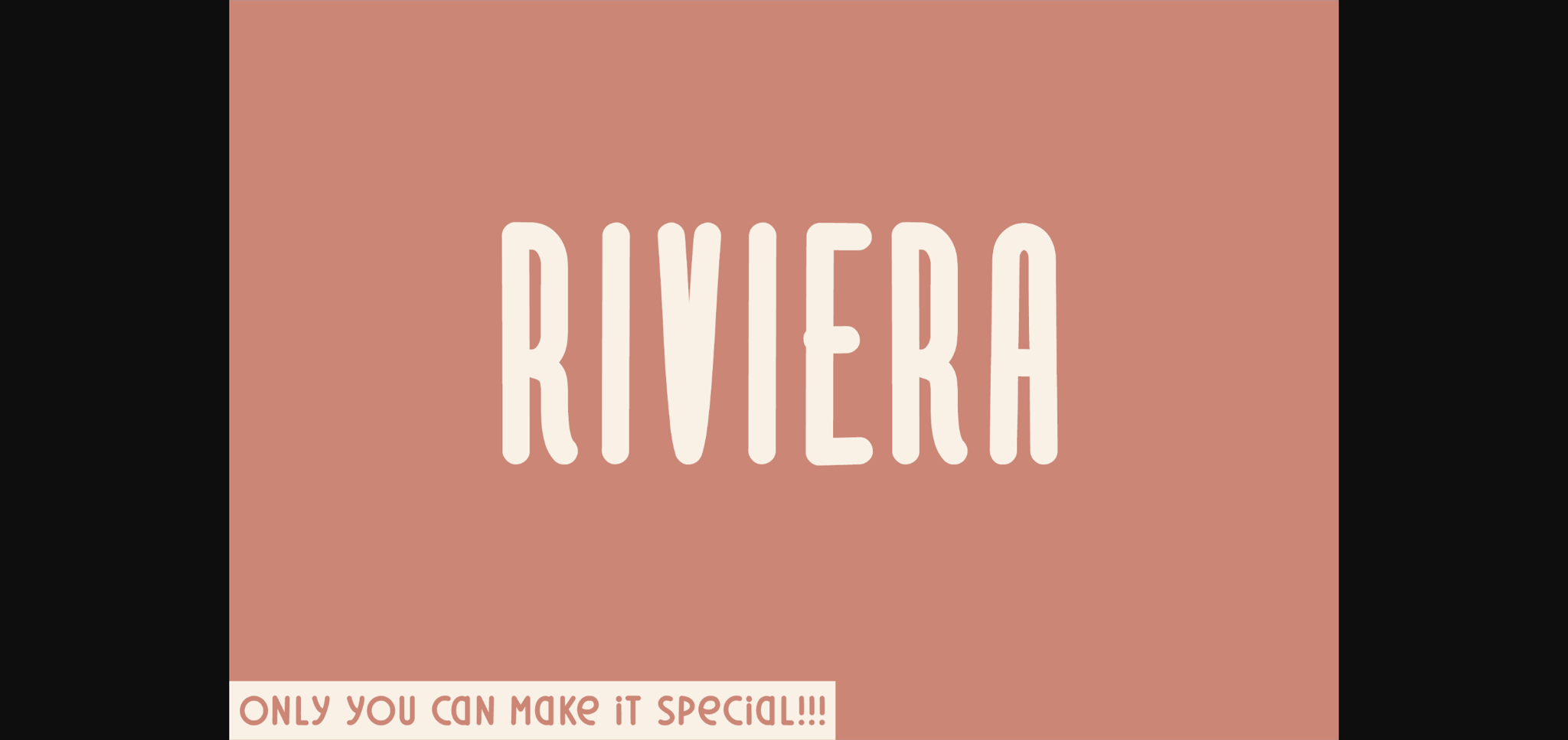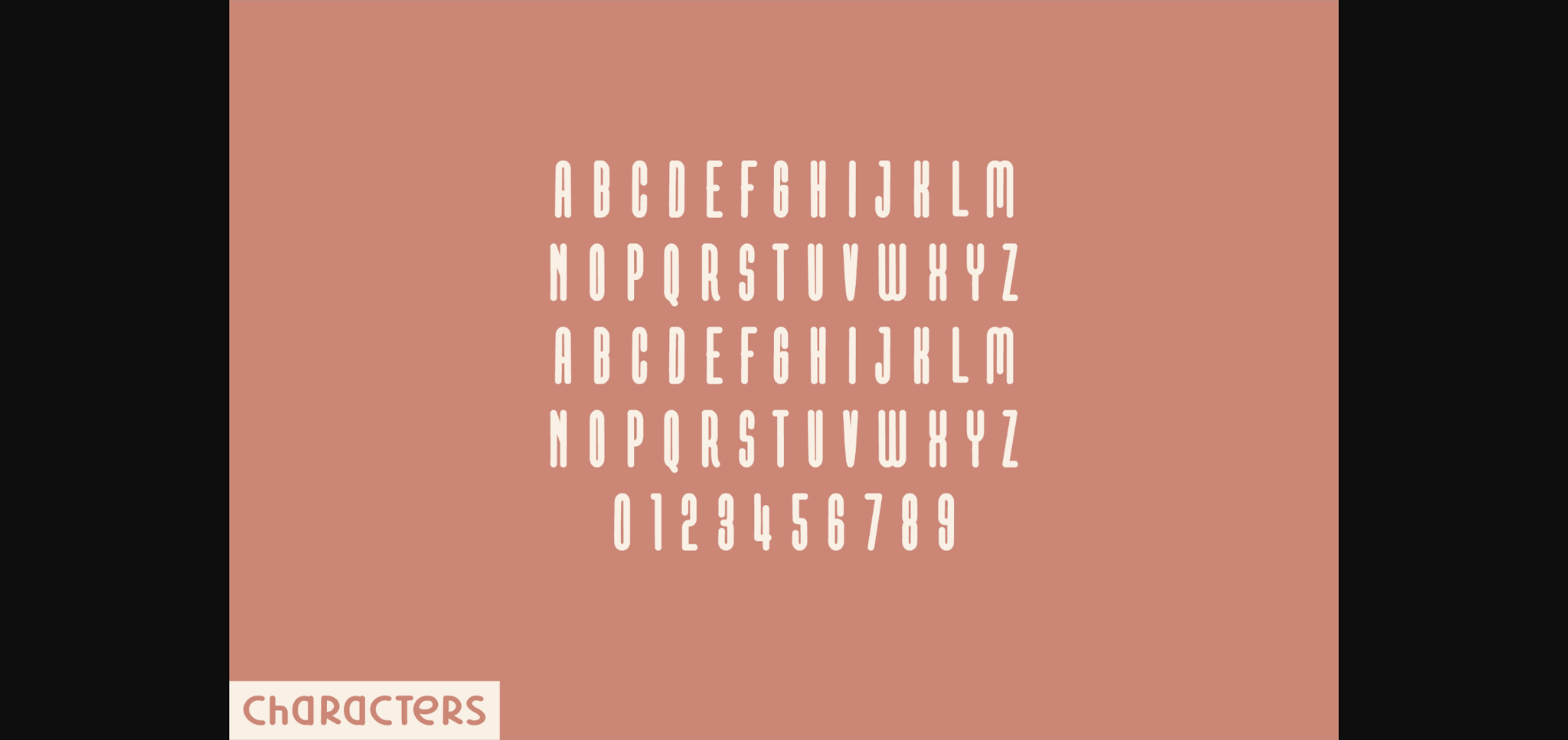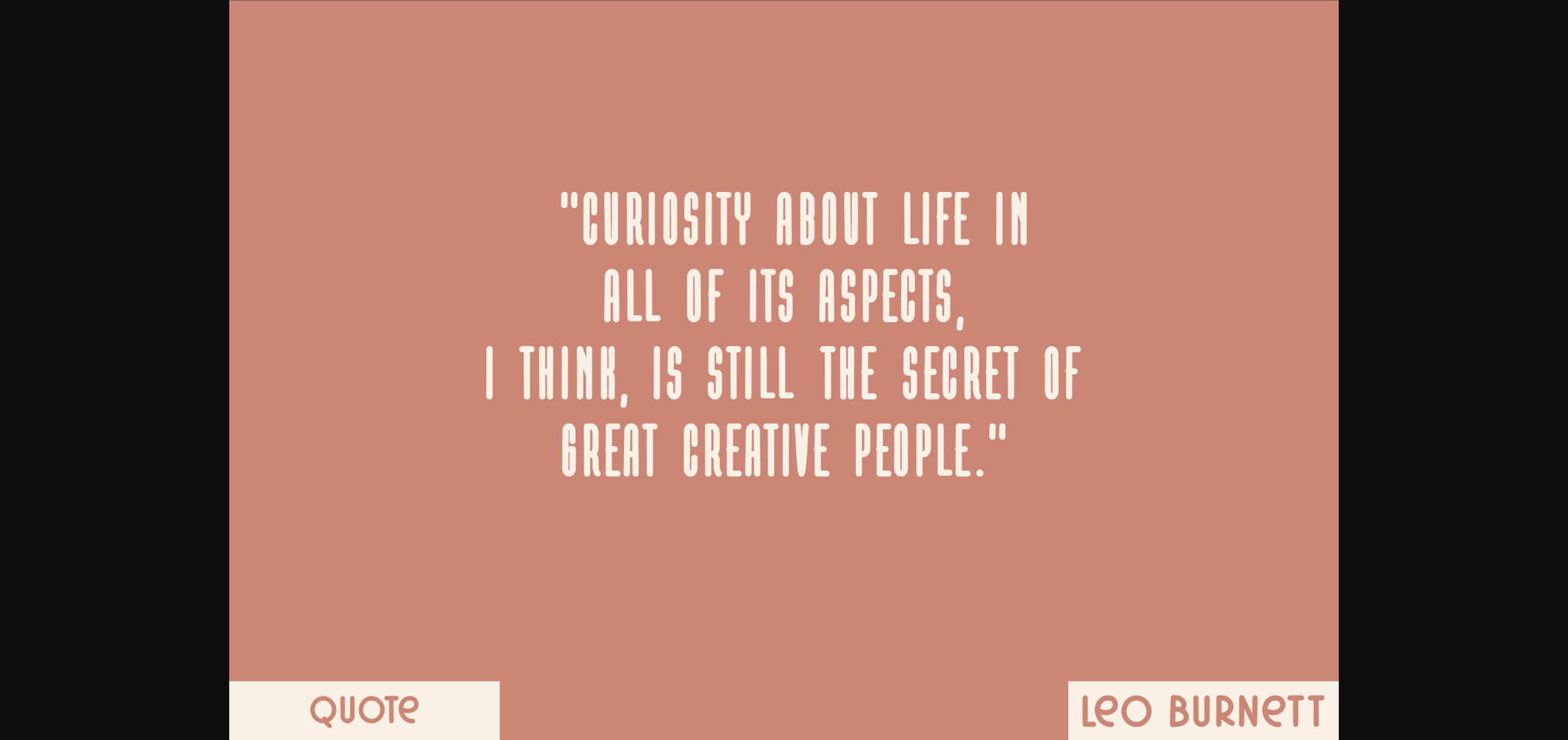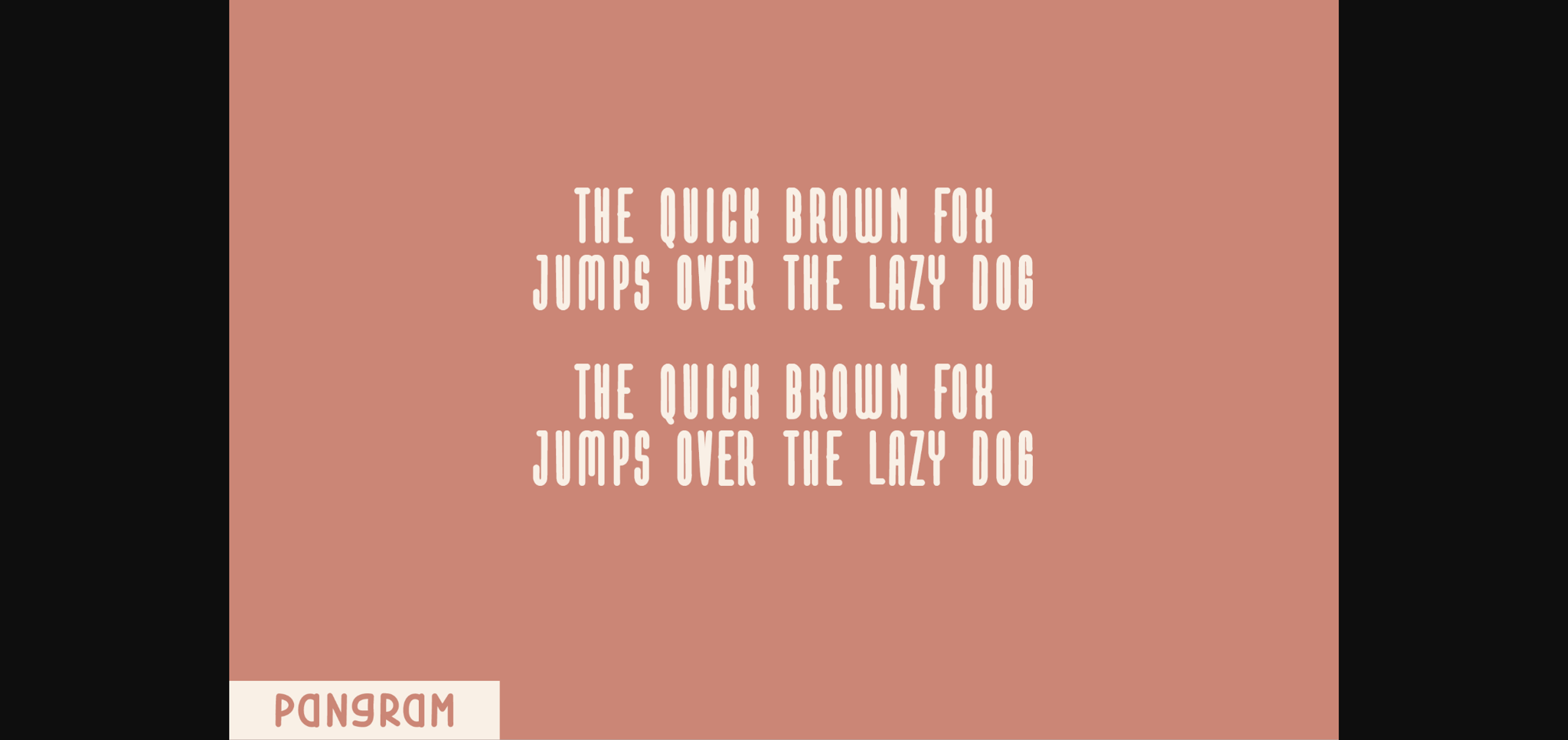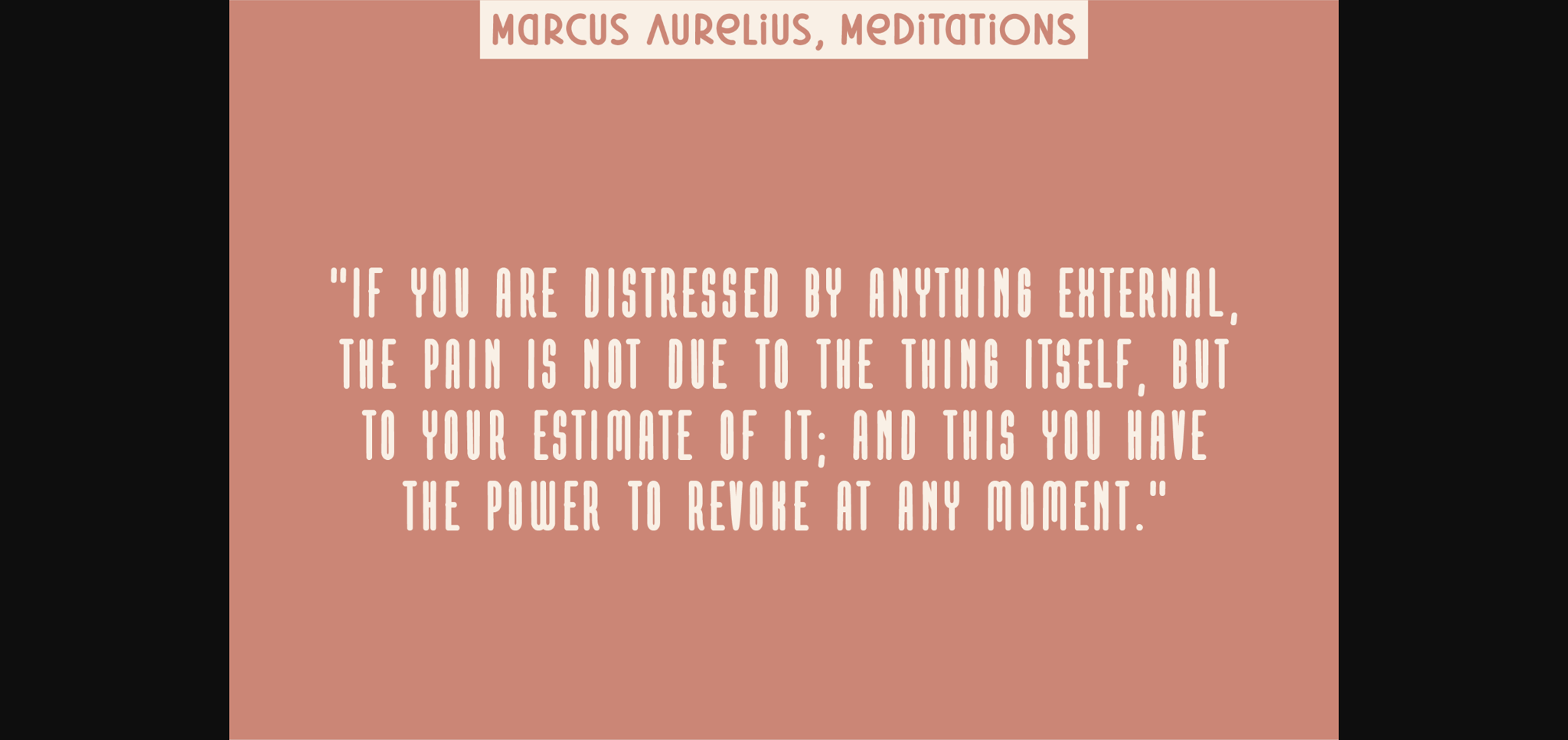
Riviera Font
About Riviera Font
Immerse yourself in the charm of Riviera! This enticing sans serif display font blissfully melds functionality with artistry. Boasting uppercase letters and numbers, Riviera enhances readability while maintaining a suave aesthetic charm. Each letter is designed with adorable, rounded ends, bringing forth a hint of whimsical elegance. Offering a reinvention of the handwritten style, the Riviera font lavishes your design work with an essence of nature and a dash of distinctive cuteness. It’s most beatifying when incorporated into designs seeking an irresistible blend of the natural and adorable. Riviera isn’t just a font, it’s an organic expression, bound to give your design a cute and captivating personality.